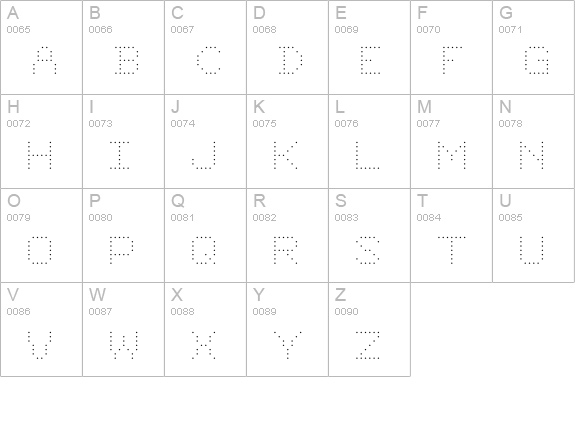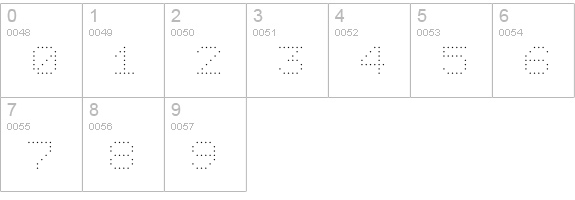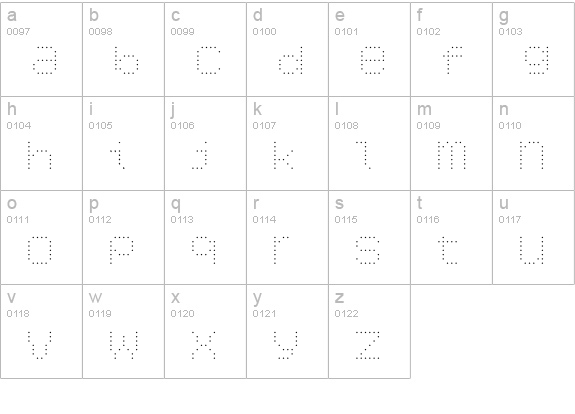
6x7oct Alternate ExtraLight is an airy, ultra-refined variant in the 6x7oct typeface family \xE2\x80\x94 well suited to minimalist headlines and refined display use.
The 6x7oct Alternate ExtraLight font is a modern and sleek typeface that exudes elegance and sophistication. Its clean lines and minimalist design make it perfect for a wide range of design projects, from branding to editorial design. This font features a unique alternate character set that adds a touch of creativity and versatility to your designs. Best of all, this font is available for free download at FontsMarket.com, making it accessible to designers of all levels. Whether you're working on a personal project or a client's design, the 6x7oct Alternate ExtraLight font is sure to elevate your work and make a lasting impression. Download it today and add a touch of class to your designs.